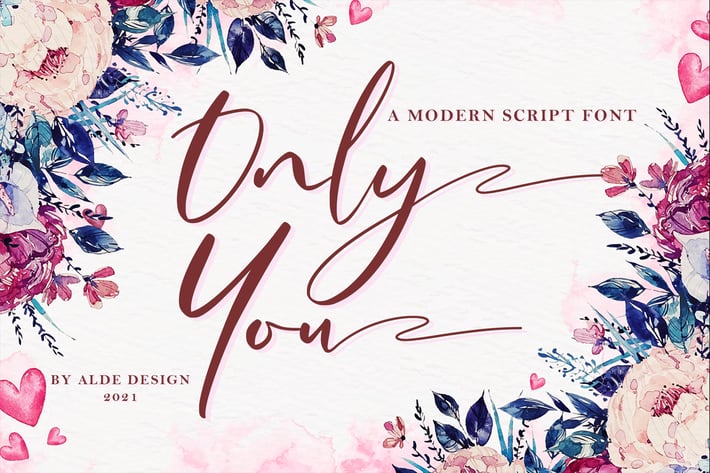
Only You - Modern Script Font
Only You // Modern Script Font
Only You is a stylish and fashionable script font. It will add a luxury spark to any design project that you wish to create! This font is PUA encoded which means you can access all of the amazing glyphs and ligatures with ease!
It has beautiful and well-balanced characters and as a result, it matches a wide pool of designs. Driana Brideth features a varying baseline, smooth lines, gorgeous glyphs, and stunning alternates. Add it to your most creative ideas and notice how it makes them come alive!
Stylish modern handwritten script
Beautiful Swash (Ending tail)
Beautiful Titling (Beginning tail)
Special Ligatures